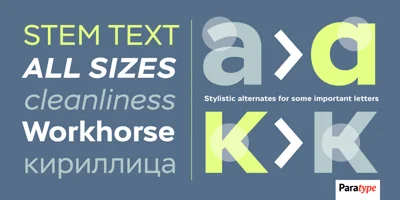
Stem Text Font
Stem Text Font is perfect for STEM education programs, scientific research publications, technology company branding, engineering textbooks, mathematics learning platforms, science museum exhibits, technical documentation, and innovative educational materials. This intelligent typeface brings scientific clarity and educational excellence to any design project celebrating science, technology, engineering, and mathematics education and innovation.
What makes Stem Text Font exciting is its perfect balance of scientific precision with educational accessibility that captures the essential clarity and systematic thinking required for effective STEM education and scientific communication. The structured letterforms feature educational proportions and scientific clarity that create an unmistakably academic appearance. Each character facilitates learning, making it ideal for institutions that represent STEM education, scientific research, and the systematic pursuit of knowledge through evidence-based methodology and logical reasoning.
The Stem Text Font family typically includes multiple weights from light to bold with complete uppercase and lowercase letters, numbers, punctuation marks, and scientific symbols. Many versions feature additional educational decorative elements, STEM motifs, and academic symbols that enhance the scientific aesthetic and provide creative flexibility for educational and research design applications.
Whether you're developing STEM educational brands or creating scientific research materials, Stem Text Font offers unmatched academic authority and scientific credibility. This intelligent typography choice transforms complex information into clear educational communications that resonate with students and educators pursuing scientific excellence. The font's systematic construction ensures exceptional performance across educational applications while maintaining its distinctive STEM character that makes every design project feel like a breakthrough discovery where science meets education in perfect harmony to advance human knowledge and understanding through systematic inquiry.